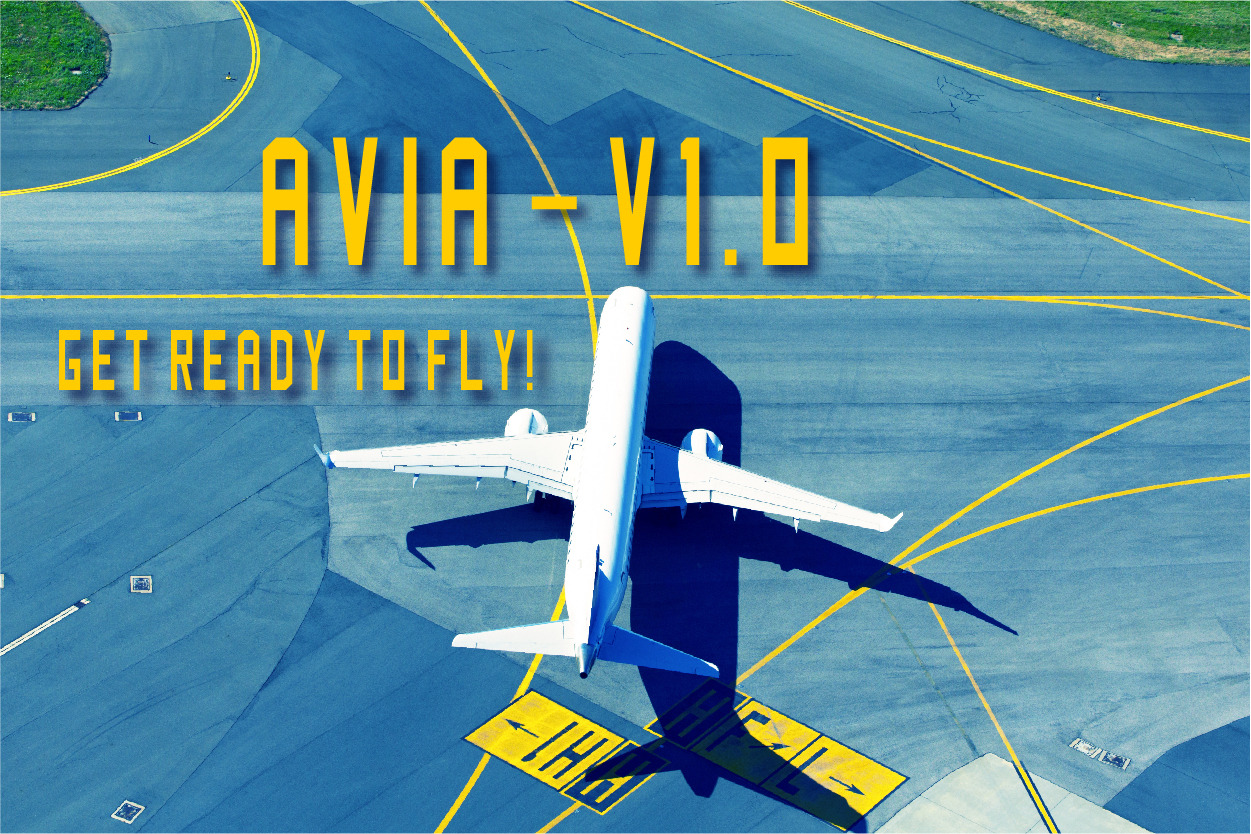
AVIA geometric font
Strict and geometric font. Perfectly suitable for headings, titles, logos and writing of any large inscriptions.
- Headlines, Titles, Captions
Logos, Games, Apps
Movies, Posters and T-shirts